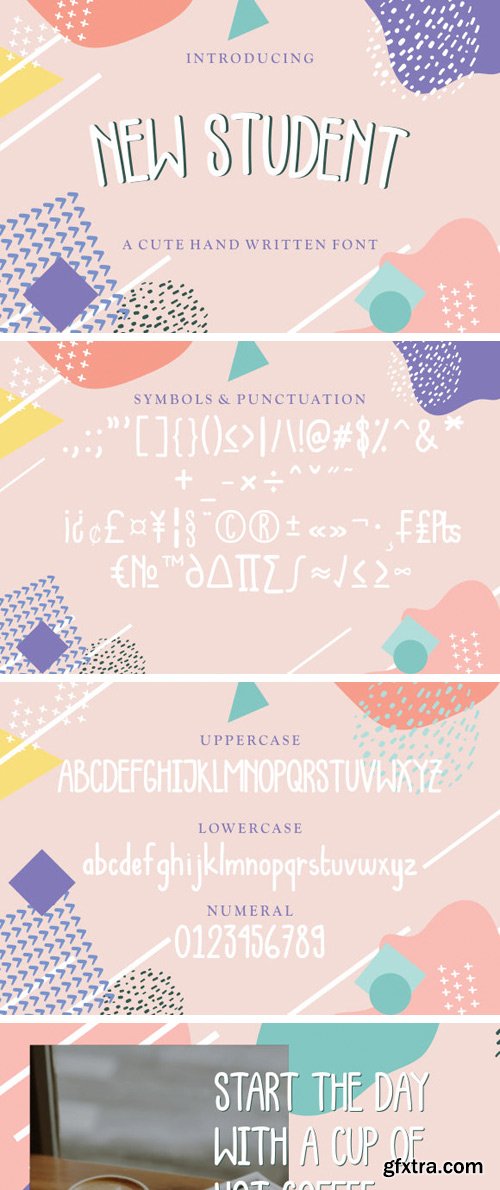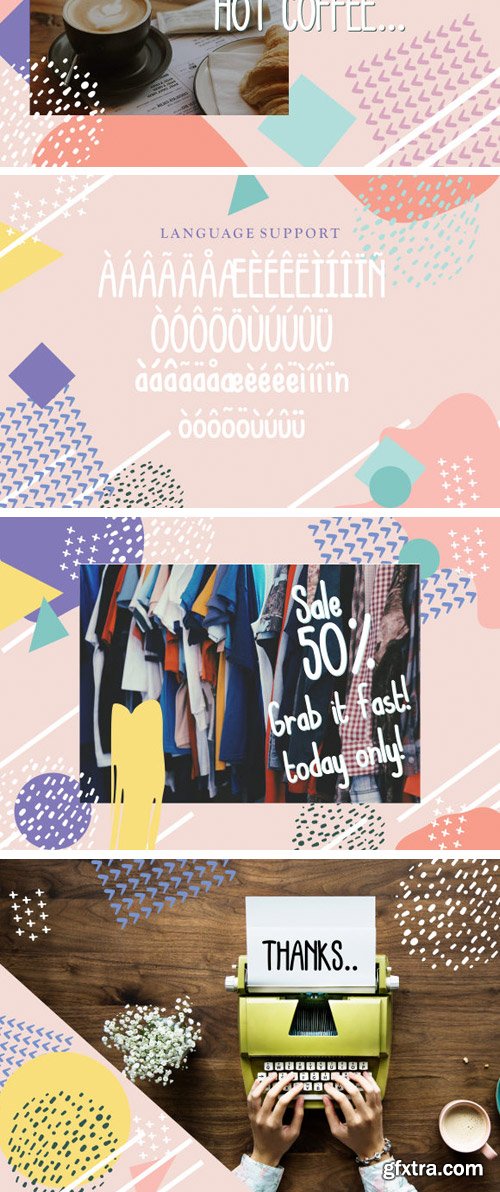
新学生字体
New Student Font
The New Student is a fresh and cute handwritten font. It has a natural handwritten feel and will add a fun and cartoony style to your designs. It works well for a variety of uses, such as invitations, branding material, quotes & posters, letters and more!